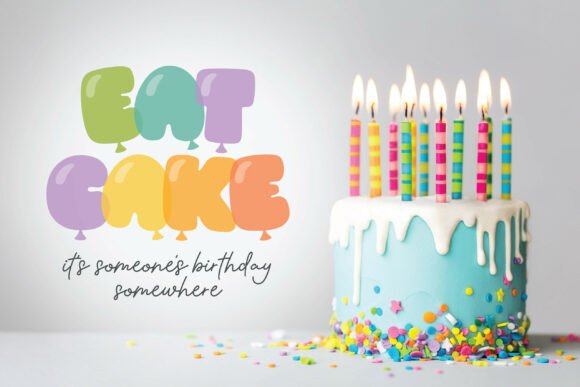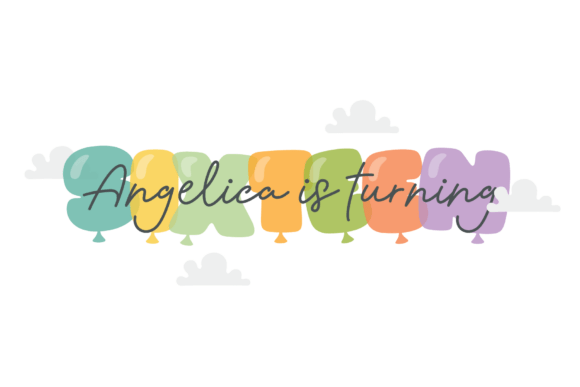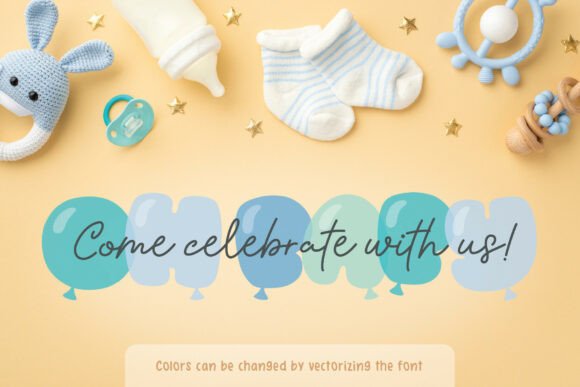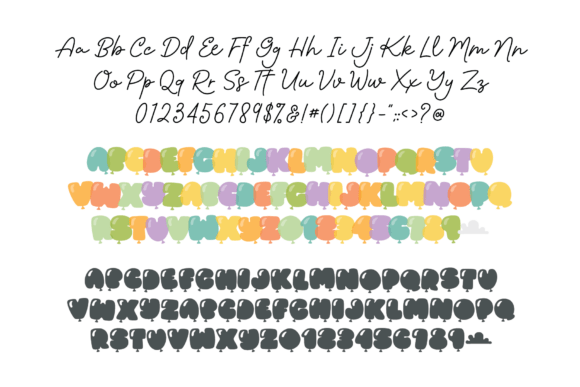
Introducing Shin Boisterous: The Ultimate Font Duo for Celebrations
Are you tired of using the same old fonts for your party invitations, social media graphics, and nursery decor? Look no further than Shin Boisterous, a whimsical and high-energy font duo that’s sure to bring the party to your designs. This charming font set features a plump, balloon-style display face paired with a graceful, flowing script, offering a perfect balance of bold and elegant.
The Perfect Pairing: Bold and Elegant
The Shin Boisterous font duo is all about contrast. The chunky, balloon-style display face is designed to grab attention and make a statement, while the handwritten script adds a personal and sophisticated touch to subtext or signatures. This dual nature makes it incredibly versatile, allowing designers to use it for a wide range of projects, from birthday invitations to digital greeting cards.
A Party in Digital Form
Shin Boisterous is essentially a party in digital form. The font’s playful and energetic vibe is perfect for creating festive and fun designs that will leave a lasting impression. Whether you’re designing a cake topper or a social media graphic, this font duo provides the versatility needed to make your work pop.
Perfect Pairings: Vibrant Pastel Palettes and Playful Illustrations
Shin Boisterous pairs beautifully with vibrant pastel palettes and playful illustrations, allowing designers to create cohesive and professional-looking event branding with ease. The font’s bold and playful nature makes it perfect for pairing with bright and cheerful colors, while the elegant script adds a touch of sophistication to more subtle designs.
The possibilities are endless with Shin Boisterous. Here are just a few ideas to get you started:
- Birthday invitations and party decorations
- Festive social media graphics and event branding
- Nursery decor and children’s book illustrations
- Cake toppers and dessert decorations
- Digital greeting cards and party invitations
Why Choose Shin Boisterous?
So why choose Shin Boisterous over other font duos? Here are just a few reasons:
- Unique and playful design: Shin Boisterous is a one-of-a-kind font duo that’s sure to stand out in any design.
- Versatile and adaptable: The font duo’s dual nature makes it perfect for a wide range of projects and design applications.
- Easy to use: Shin Boisterous is incredibly easy to use, even for designers who are new to working with font duos.
- Perfect for celebrations: The font duo’s playful and energetic vibe makes it perfect for creating festive and fun designs for any celebration.
Get Ready to Party with Shin Boisterous
If you’re looking for a font duo that’s sure to bring the party to your designs, look no further than Shin Boisterous. With its unique and playful design, versatile and adaptable nature, and easy-to-use interface, this font duo is perfect for designers and crafters who want to create festive and fun designs that will leave a lasting impression.
In conclusion, Shin Boisterous is a must-have font duo for any designer or crafter who wants to add a touch of celebration to their work. With its bold and elegant design, versatile and adaptable nature, and easy-to-use interface, this font duo is perfect for a wide range of projects and design applications. So why wait? Get ready to party with Shin Boisterous and bring the fun and excitement of a celebration to your designs!